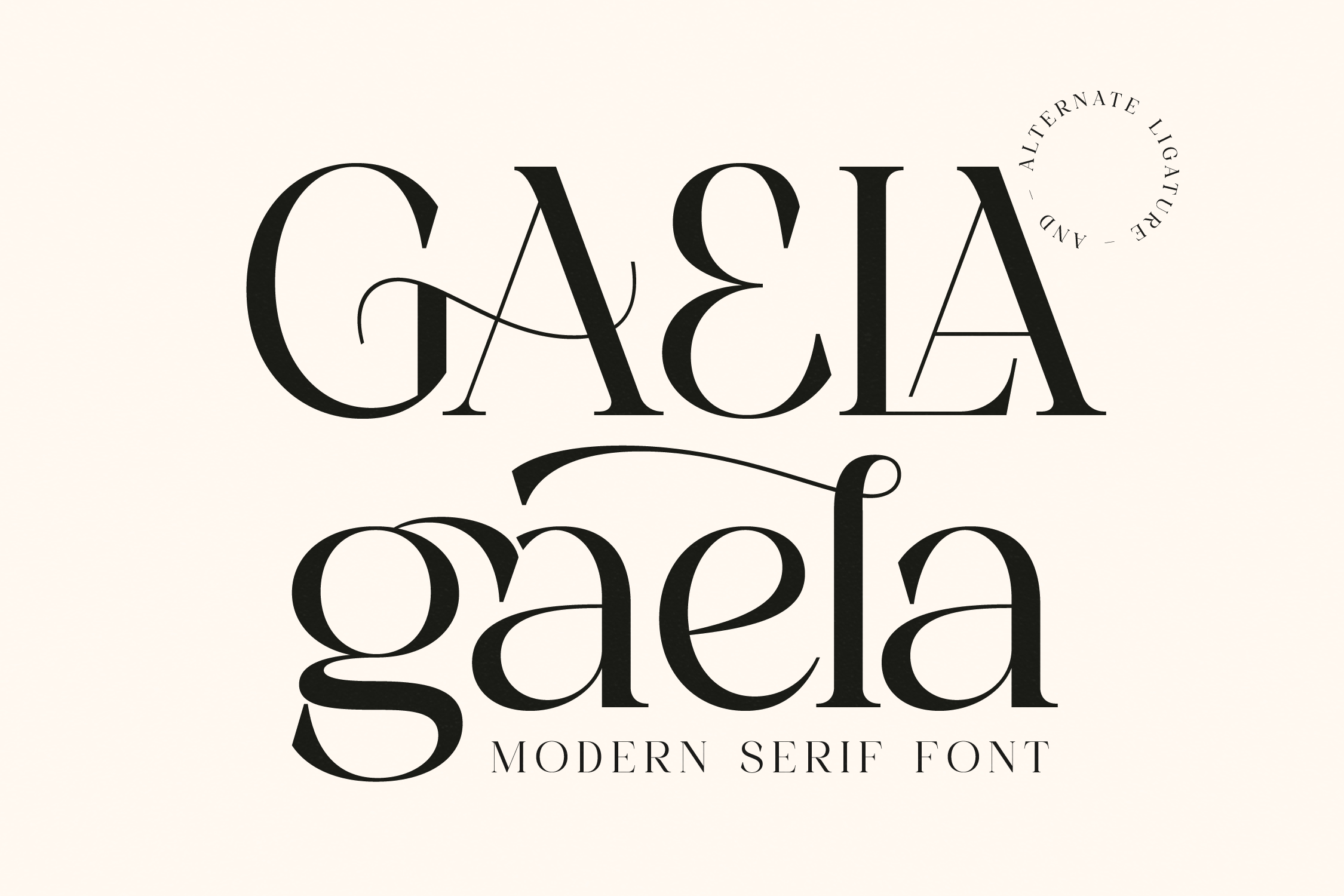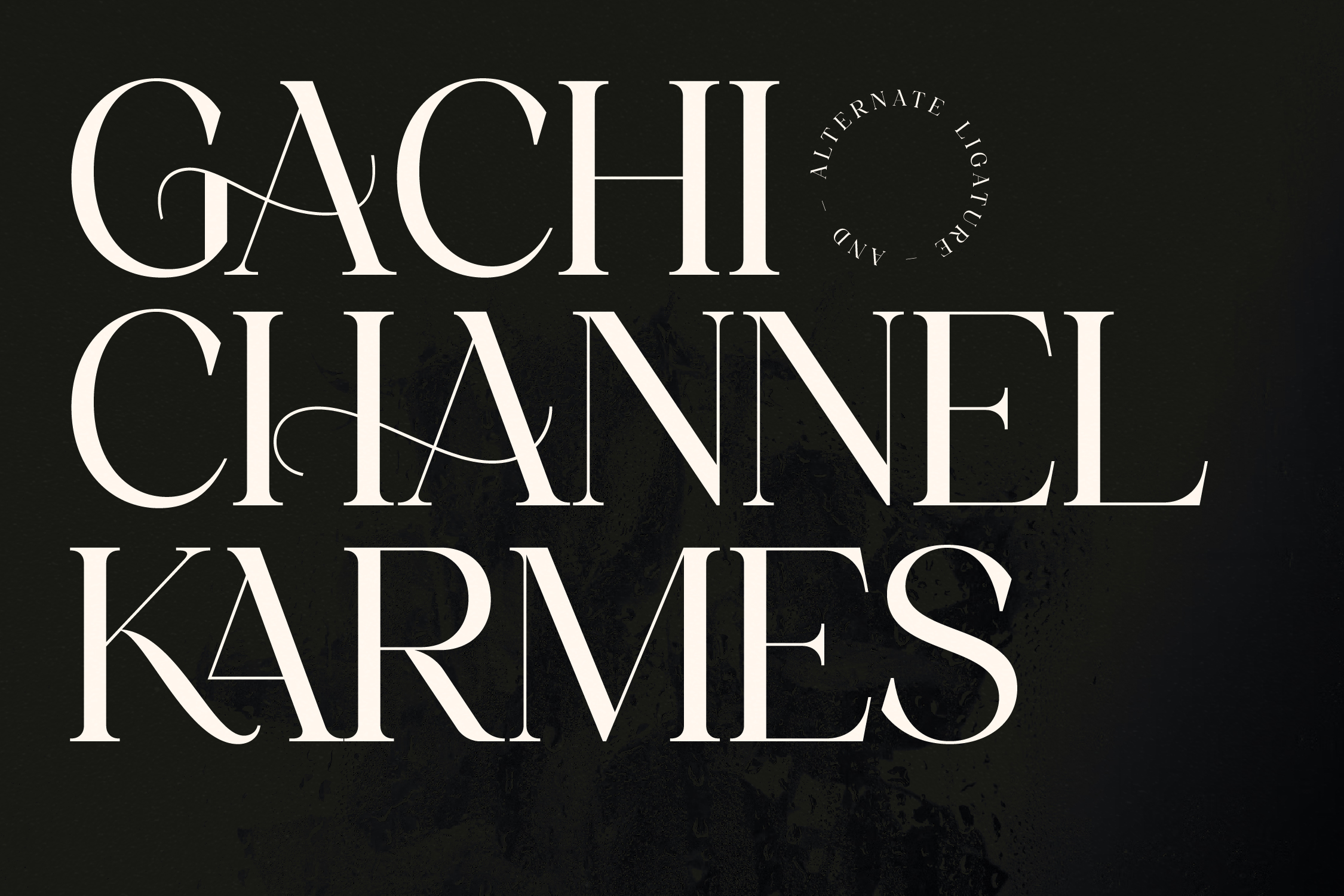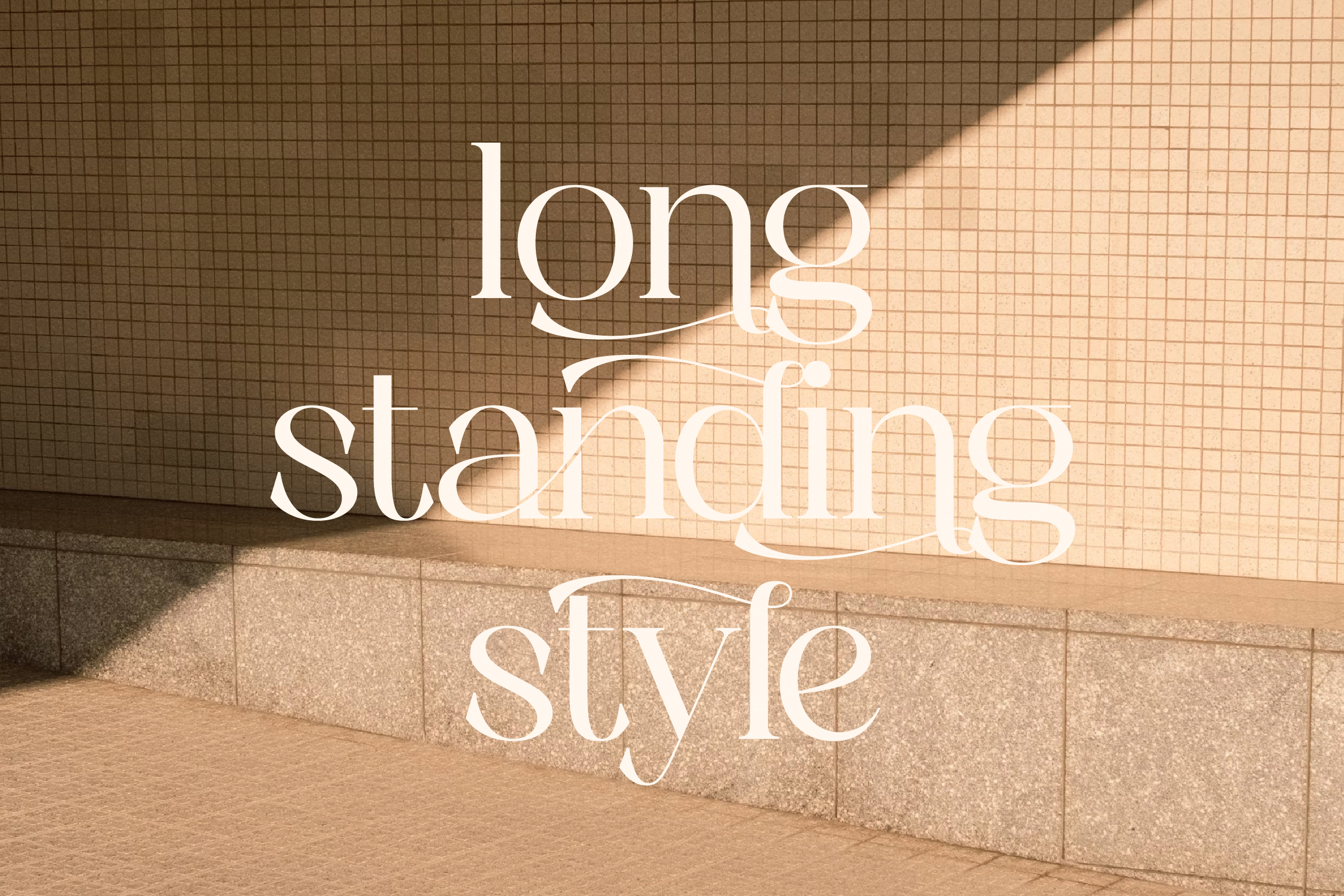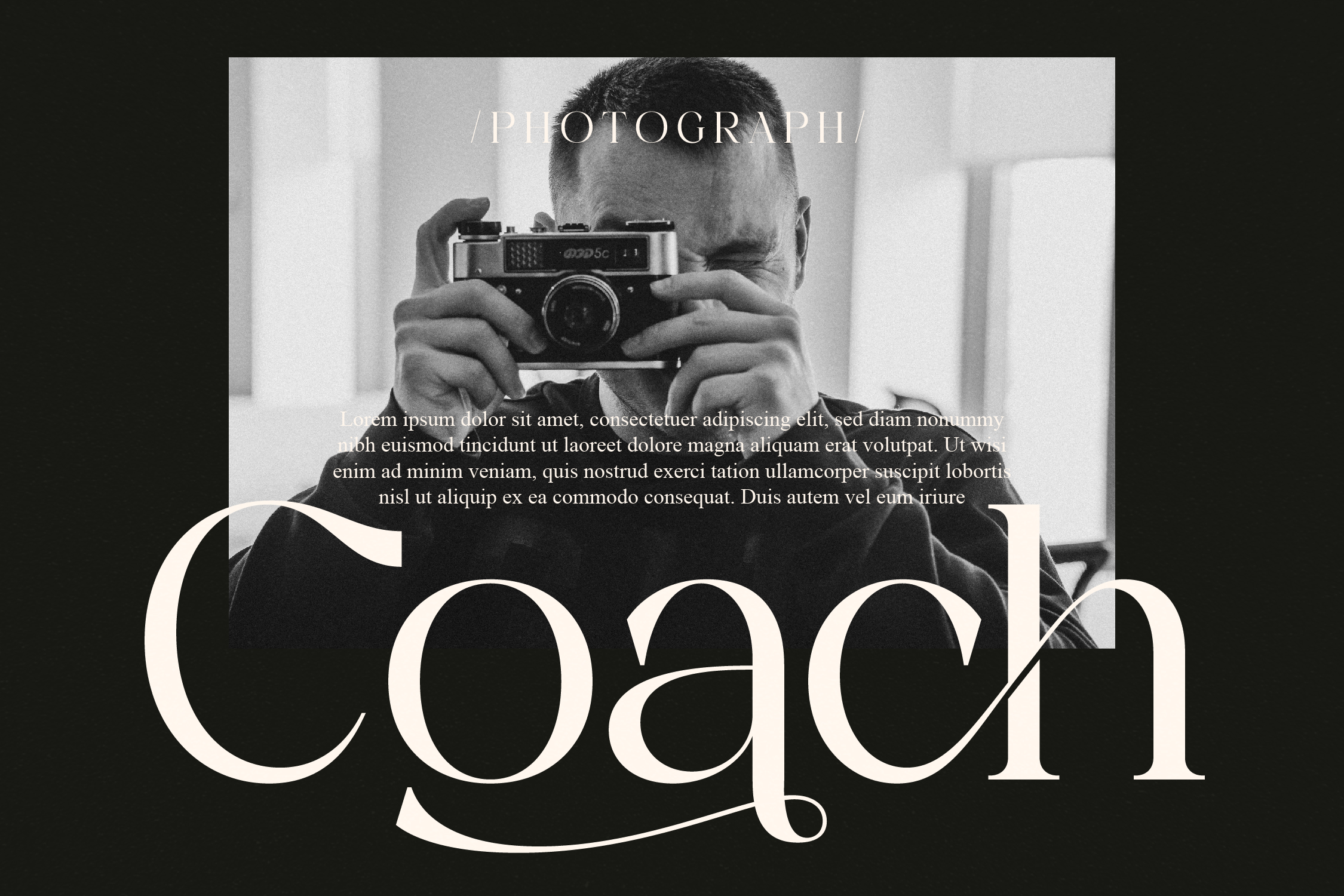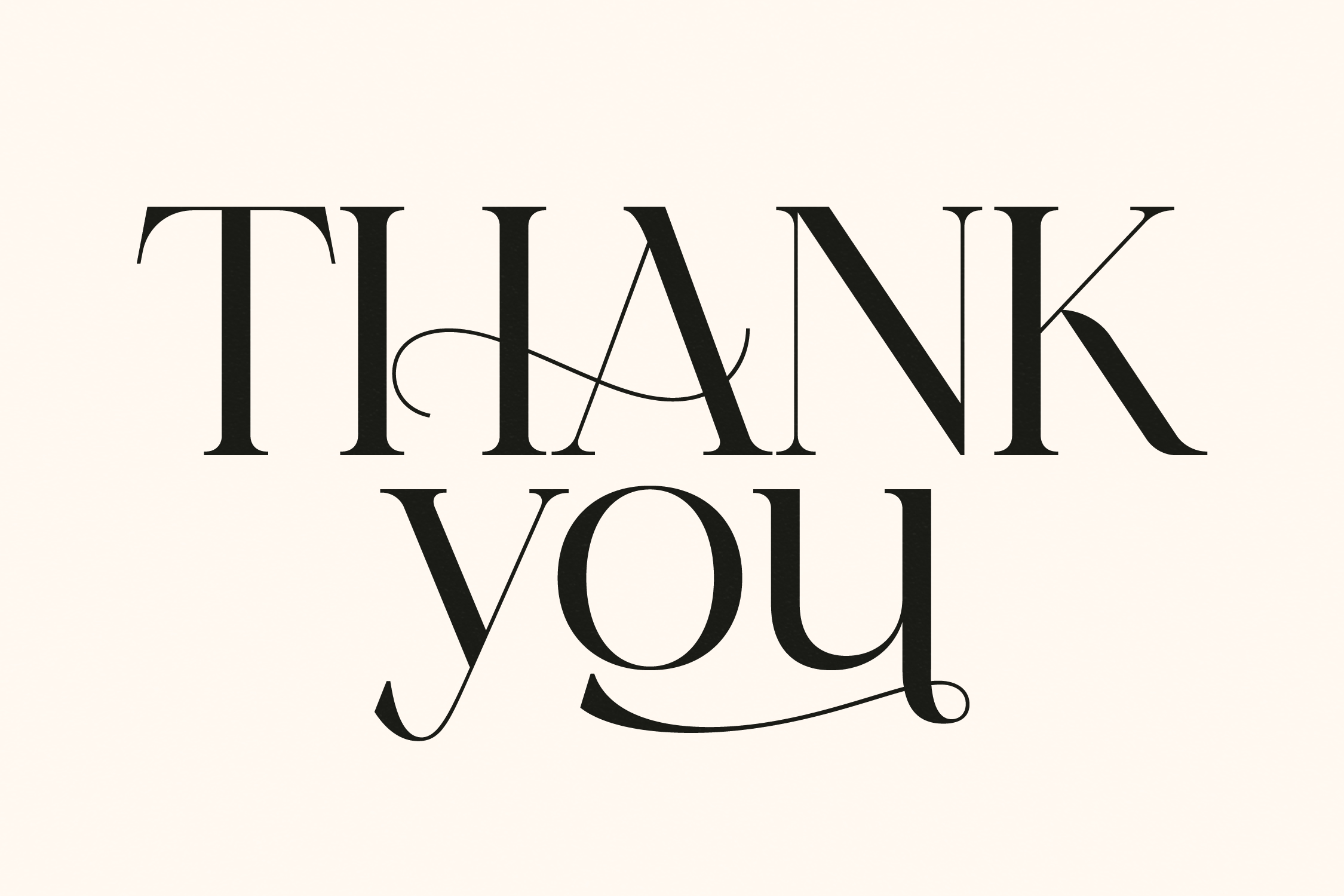
GAELA Serif Font
A serif modern and classic typeface that has own unique style & modern look. This typeface is perfect for an elegant & luxury logo, book or movie title design, fashion brand, magazine, clothes, lettering, quotes, and so much more.